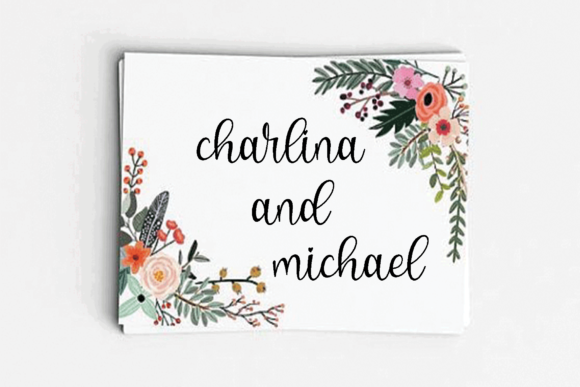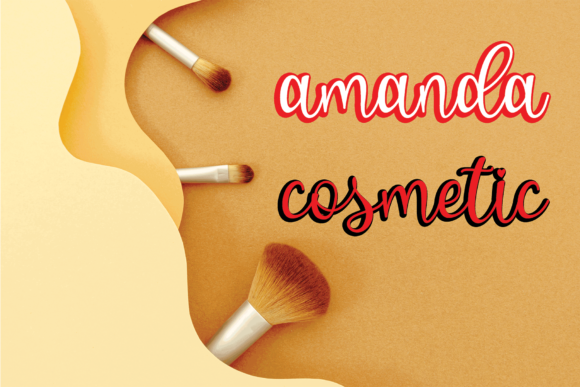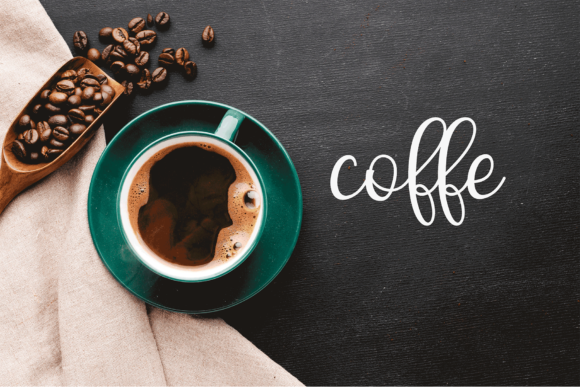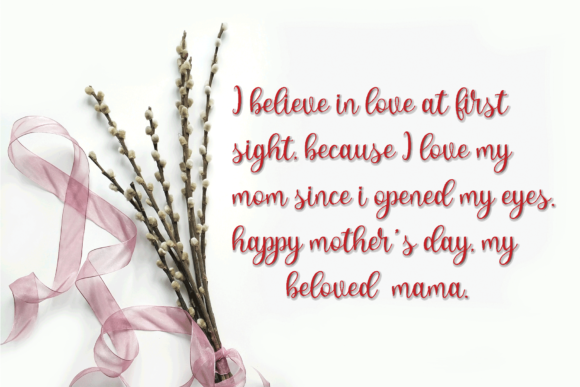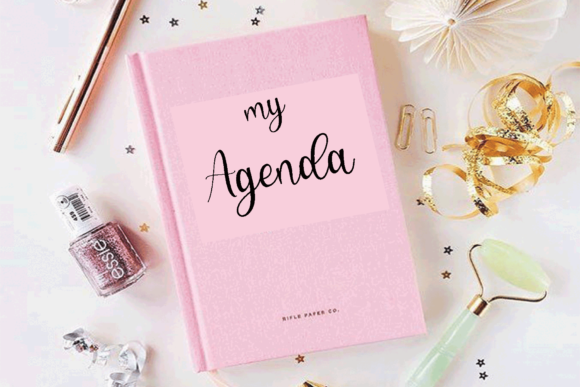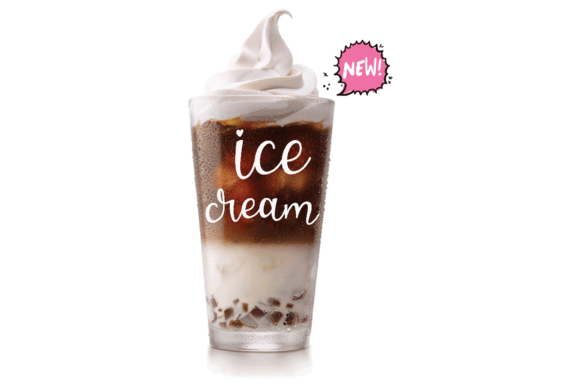
About Bluettella Font
Bluettella is a beautiful script font. It features an incredibly classic style, while still keeping a friendly feel. Bluettella is the perfect font for making original and outstanding designs.